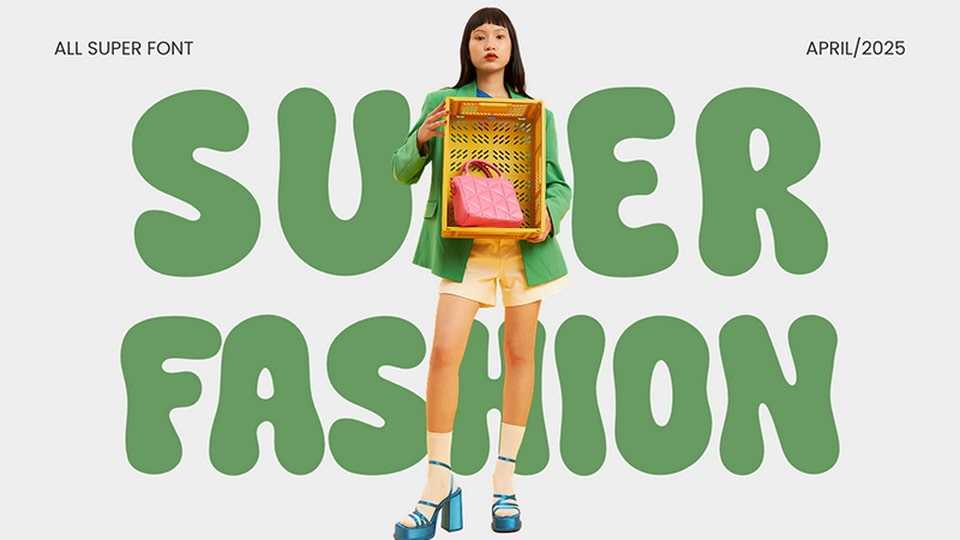
Download Super Fashion font, a chunky, ultra-soft display typeface that oozes playful charisma and retro-modern appeal, designed for maximum visual impact.